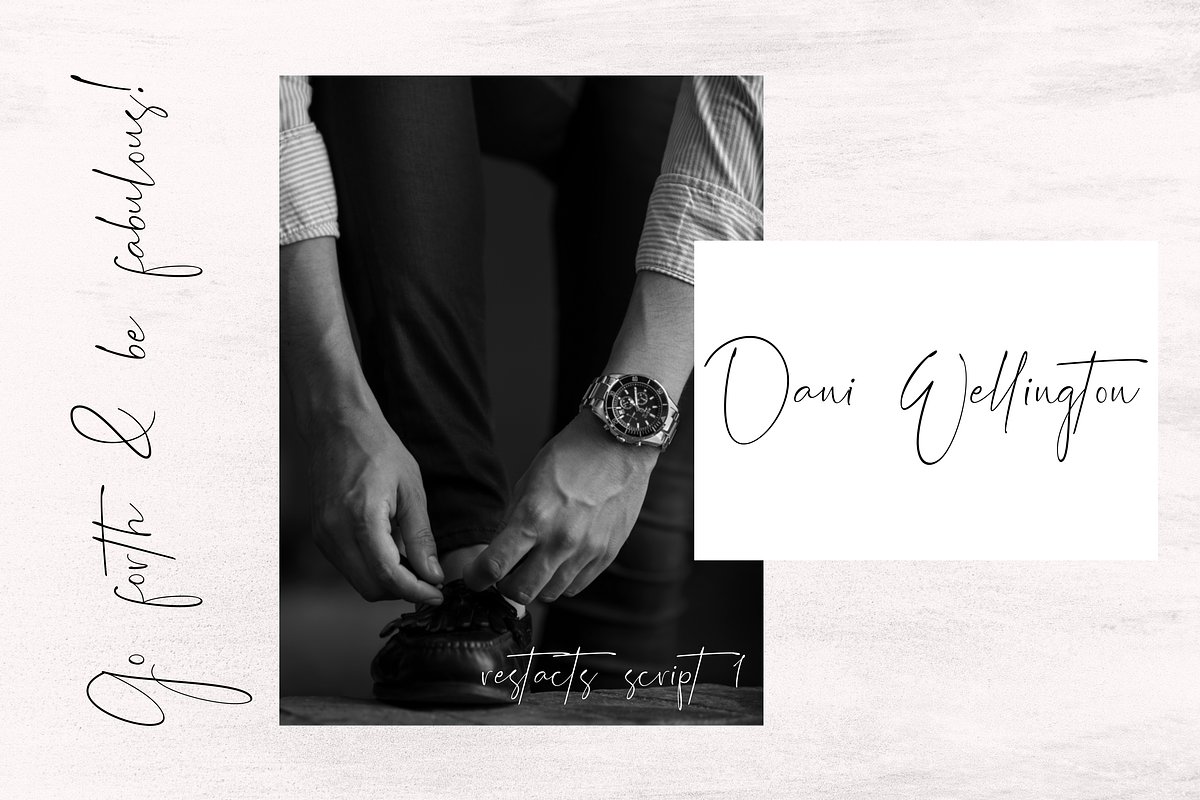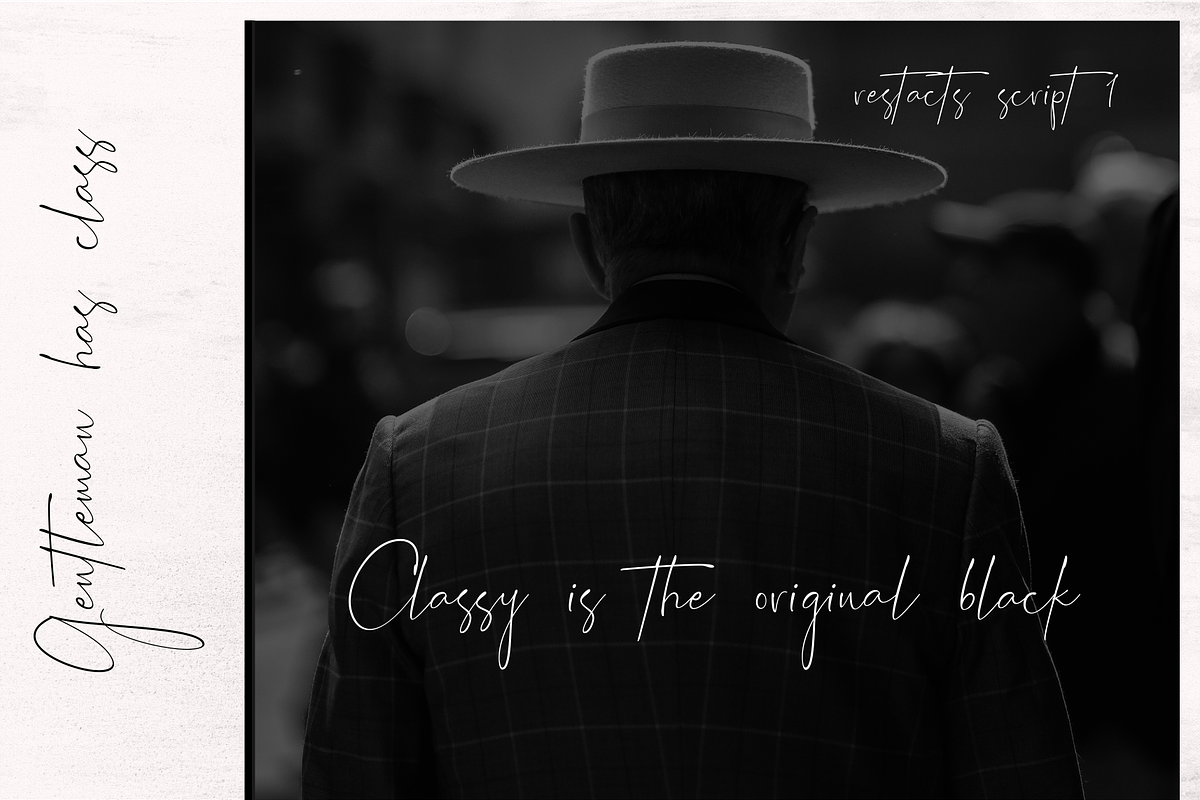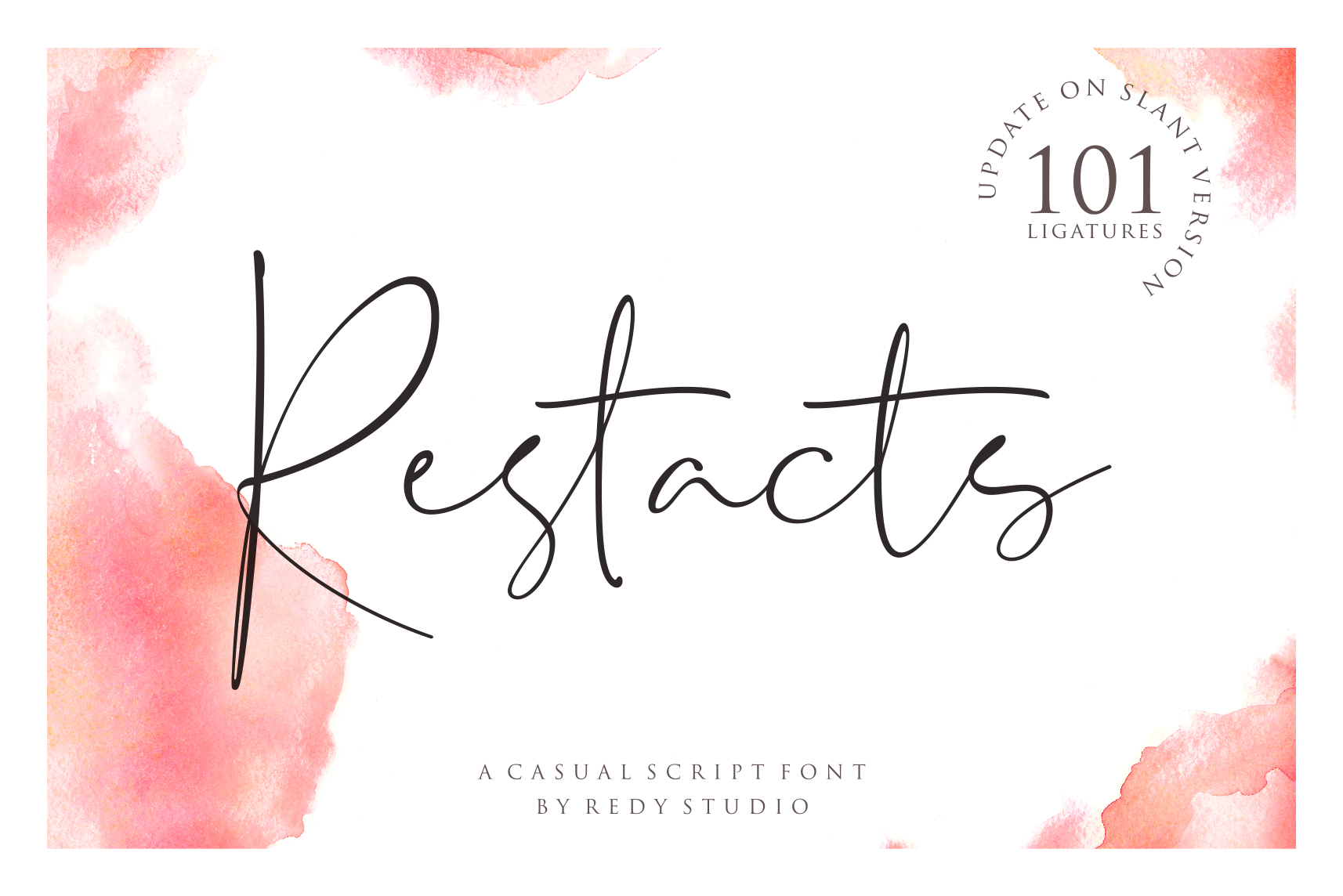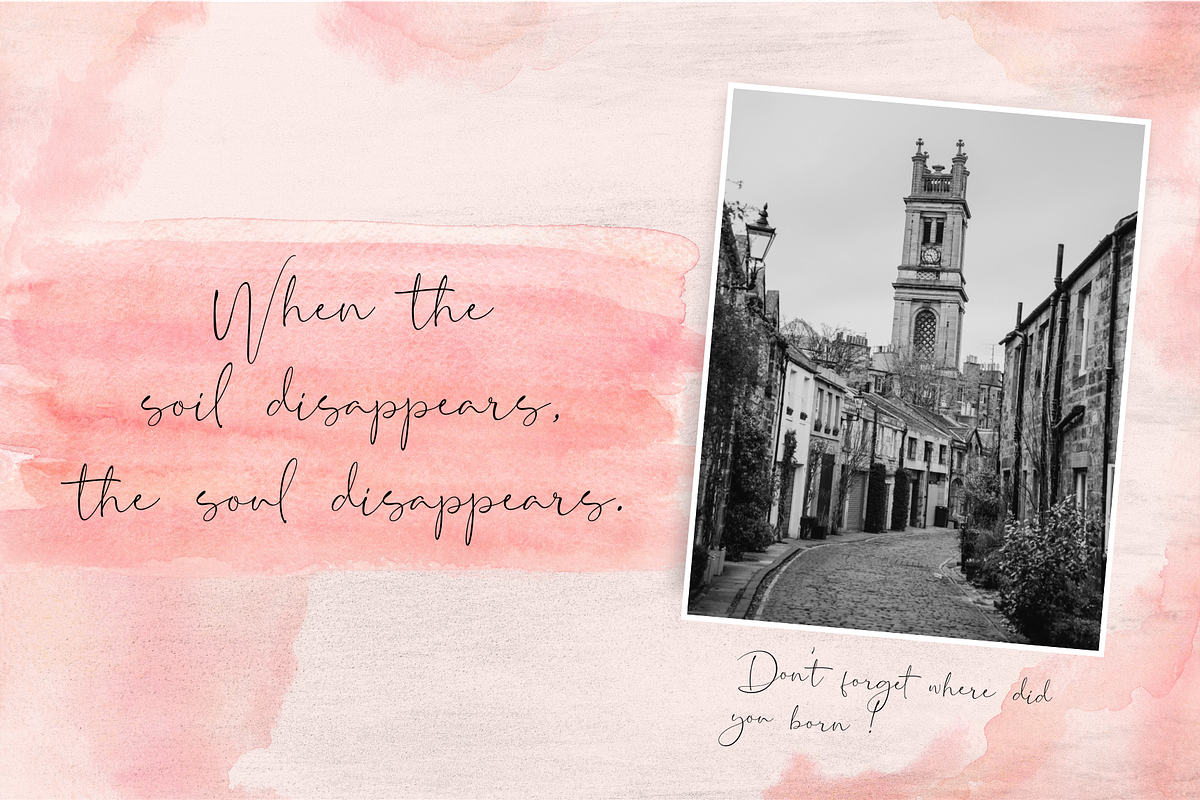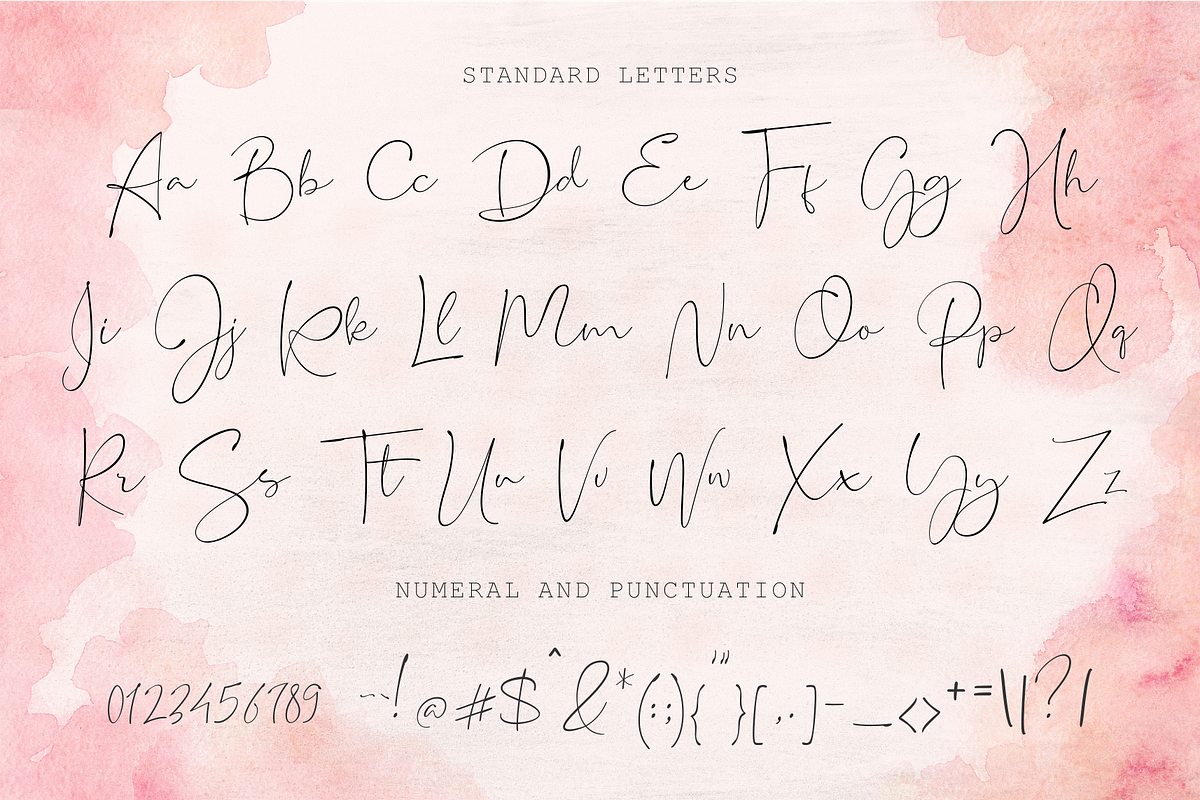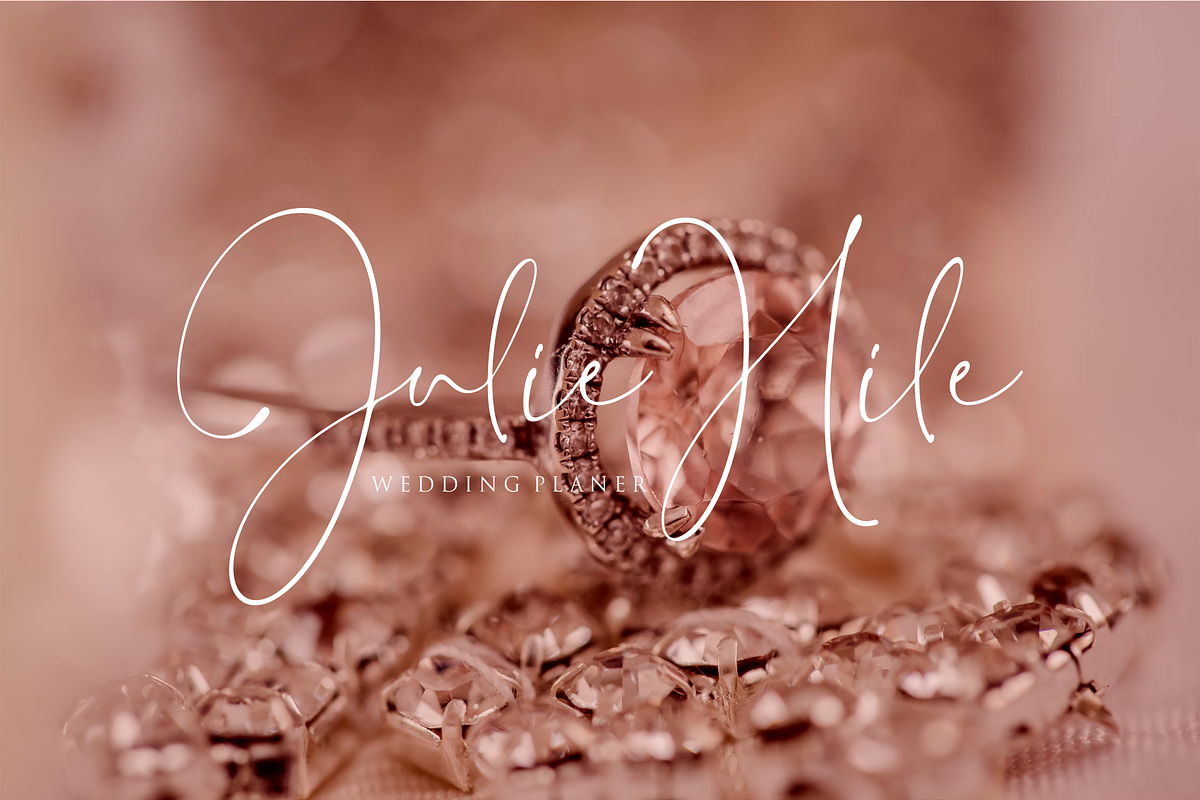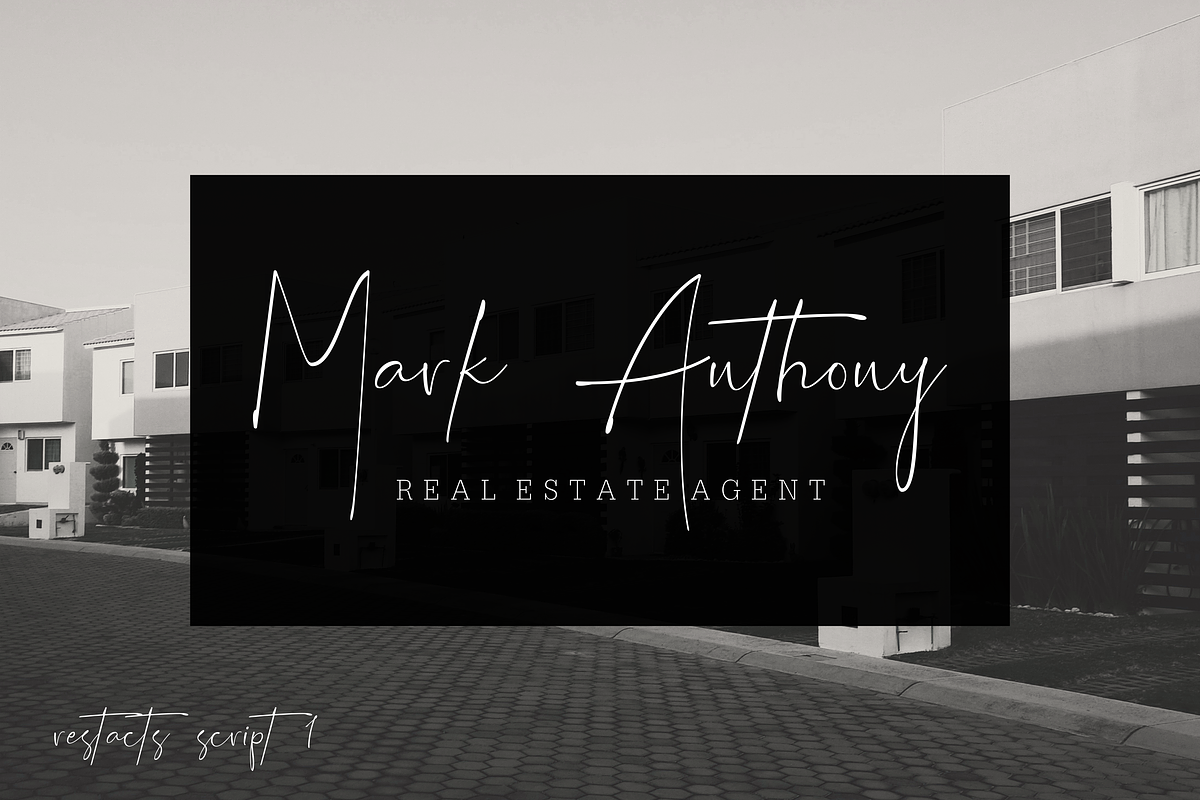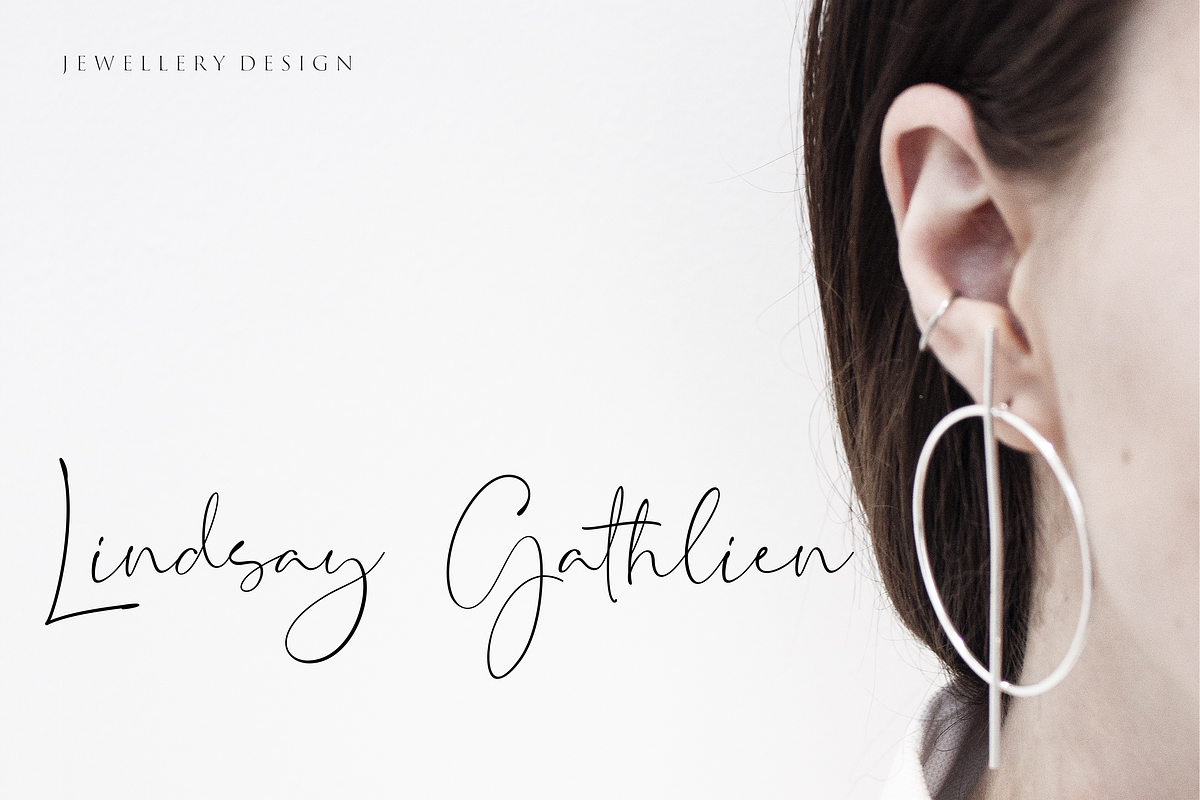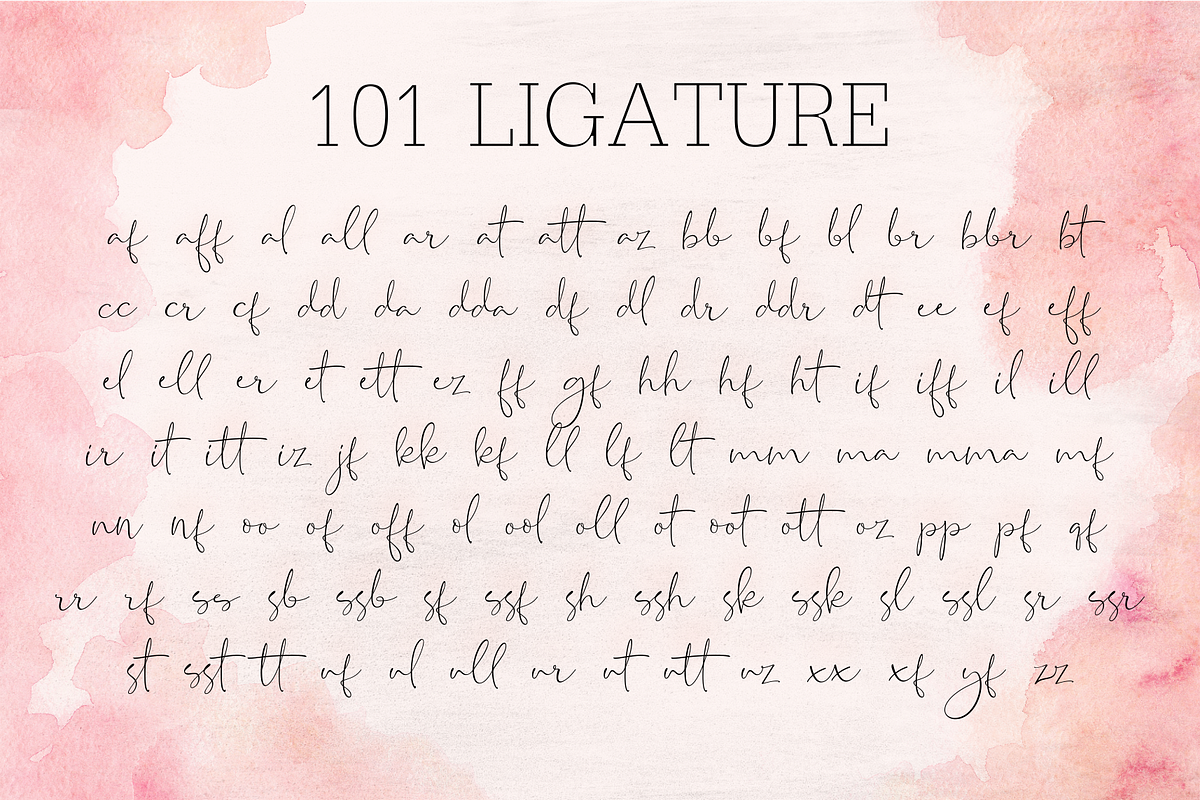
Restacts – Handwritten Script Font
Restacts is a handwritten script font, which is really unique and can perfectly match any design project about fashion, beauty, natural setting, branding, and more. Restacts is also available in 2 variants, the first one is Restacts Script which is more casual and feminine with 101 gorgeous ligatures (af, aff, al, all, ar, at, att, az, bb, bf, bl, br, bbr, bt, cc, cr, cf, dd, da, dda, df, dl, dr, ddr, dt, ee, ef, eff, el, ell, er, et, ett, ez, ff, gf, hh, hf, ht, if, iff, il, ill, ir, it, itt, iz, jf, kk, kf, ll, lf, lt, mm, ma, mma, mf, nn, nf, oo, of, off, ol, ool, oll, ot, oot, ott, oz, pp, pf, qf, rr, rf, ss, sb, ssb, sf, ssf, sh, ssh, sk, ssk, sl, ssl, sr, ssr, st, sst, tt, uf, ul, ull, ur, ut, utt, uz, xx, xf, yf, zz). the second variant is more elegant and bolder. Shout out all that’s inspiring you because it might just become the next font in your project with this handwritten script font just for you: Restacts!
Restacts features:
- A full set of upper & lowercase characters
- 101 Gorgeous Ligatures